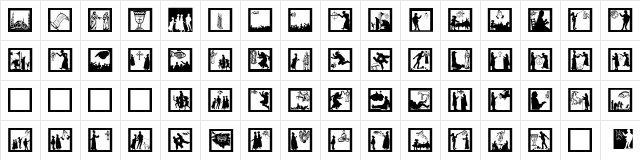
SomeSilhouettesPlus Regular
Design Context for SomeSilhouettesPlus Typeface
SomeSilhouettesPlus is a composed and adaptable typeface that performs quietly and consistently across a wide range of design contexts.
Pro Tip: Use SomeSilhouettesPlus in both headline and body roles to test its range before committing to a single application.